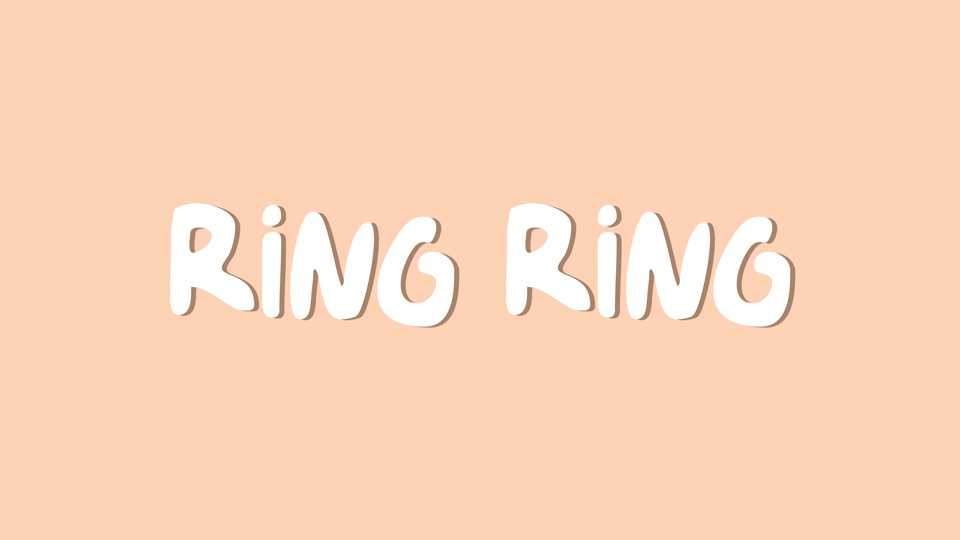
Download Ring Ring font, a quirky handcrafted typeface filled with a bold yet playful vibe. Add an eye-catching and whimsical touch to your designs with Ring Ring font.